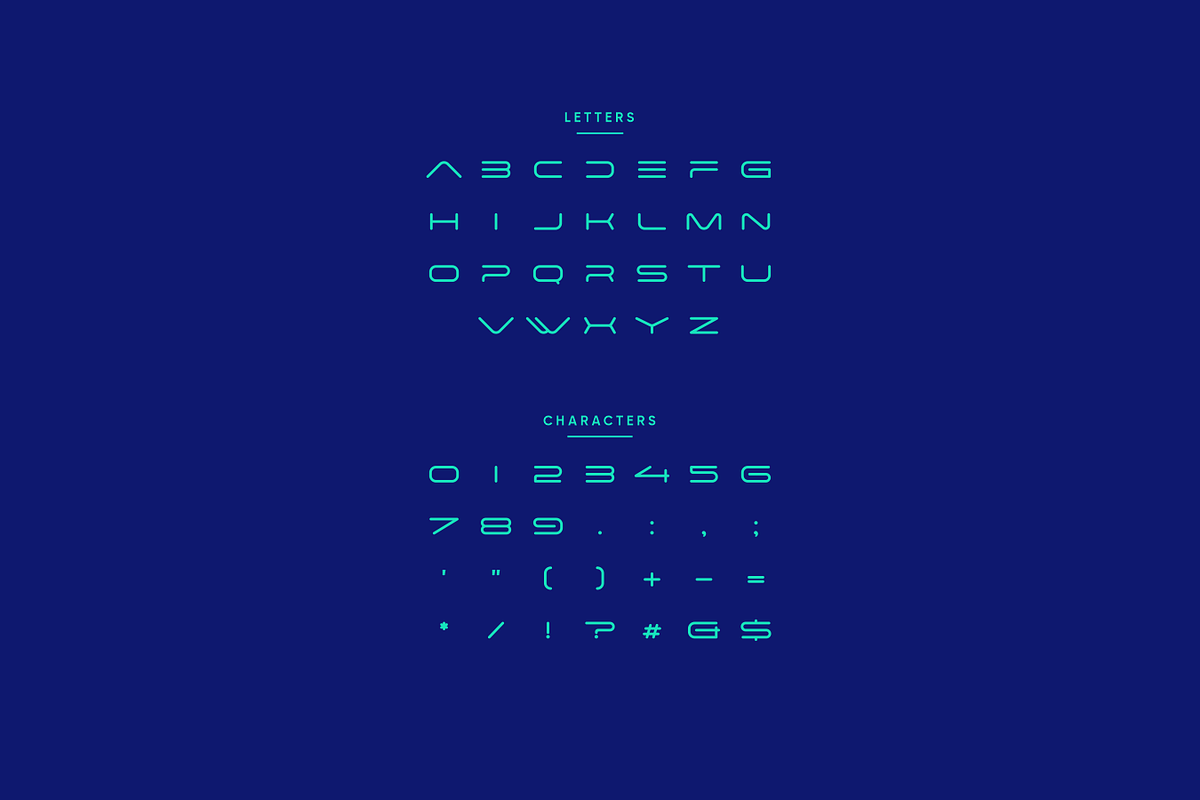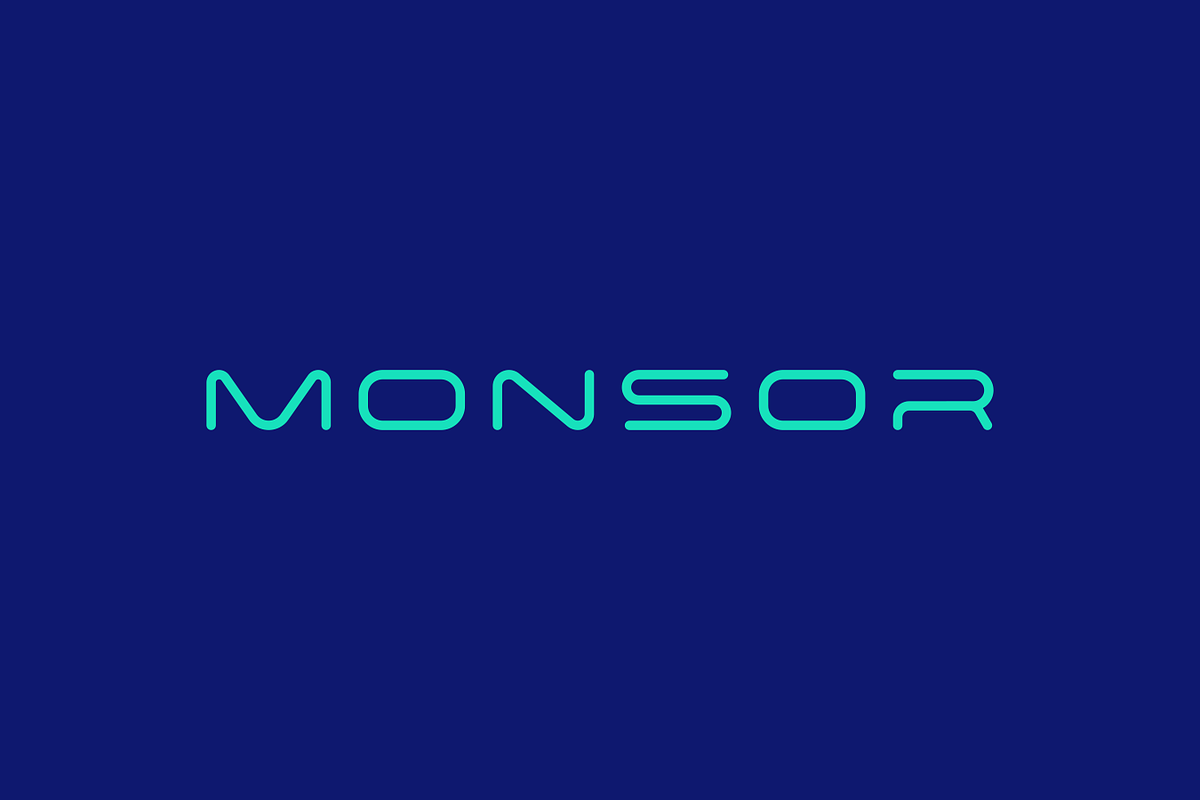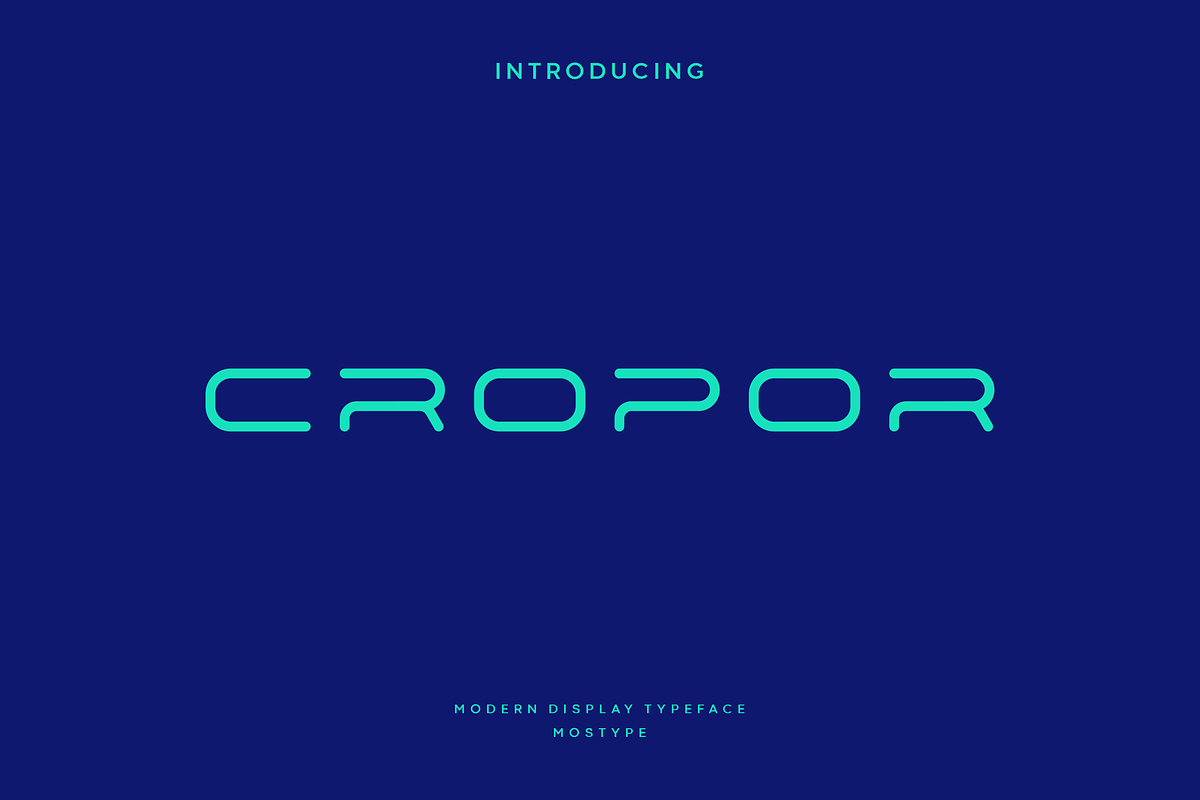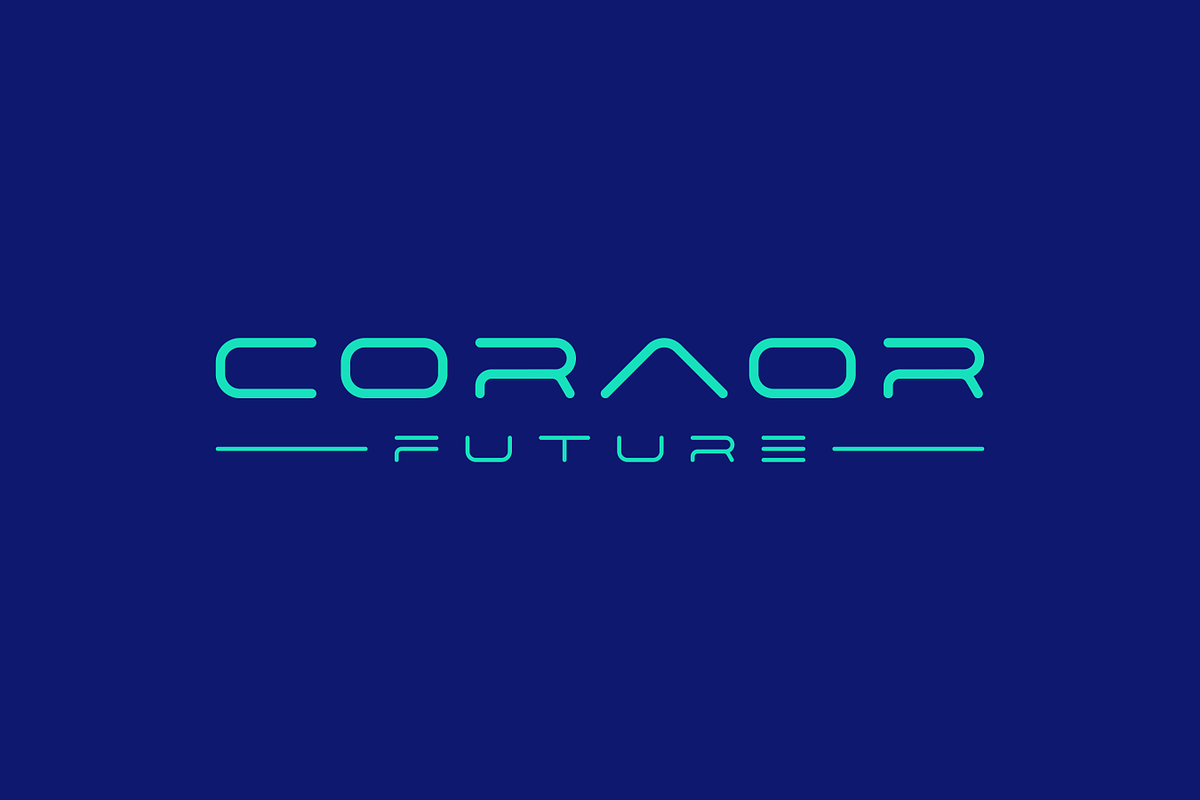
Cropor - Modern Display Typeface
Cropor is ideal for projects related to technology, artificial intelligence, robotics, futuristic themes, sci-fi literature, and digital innovation. Whether used in digital interfaces, branding materials, or promotional campaigns, this font adds a touch of sophistication and cutting-edge flair to any design.